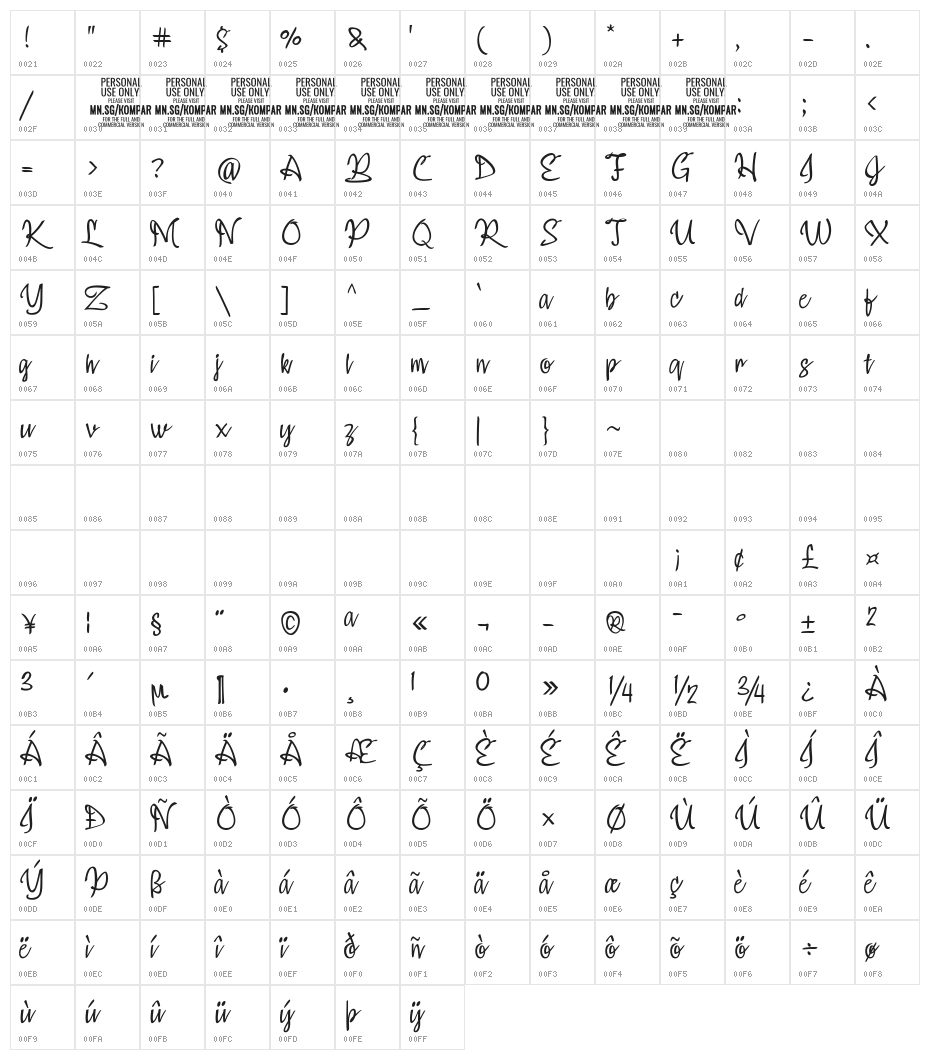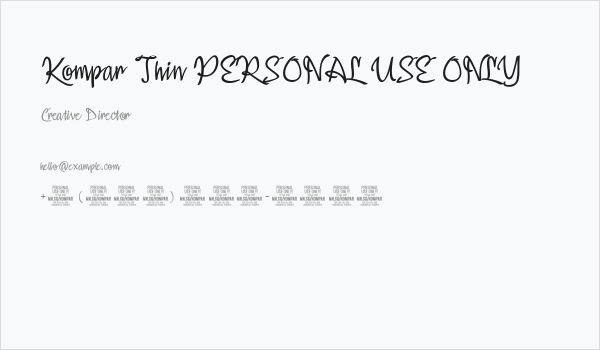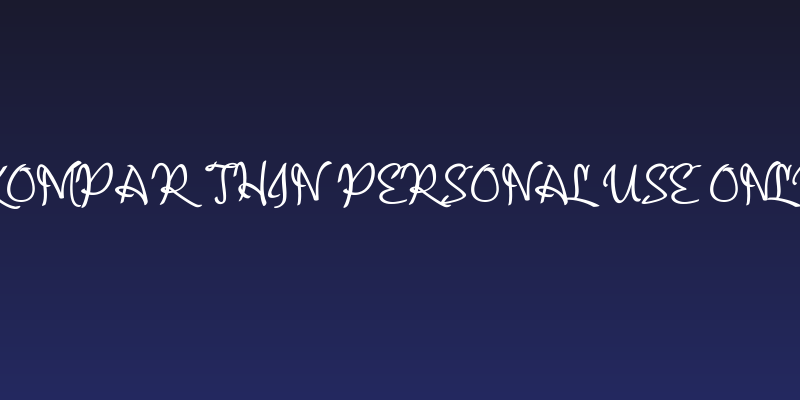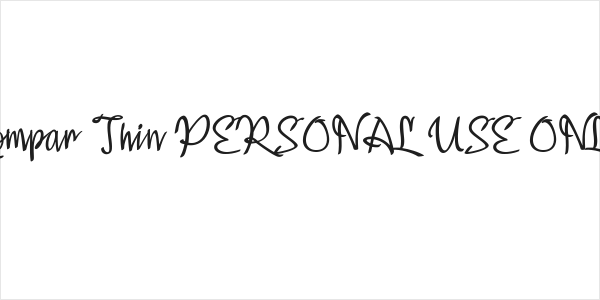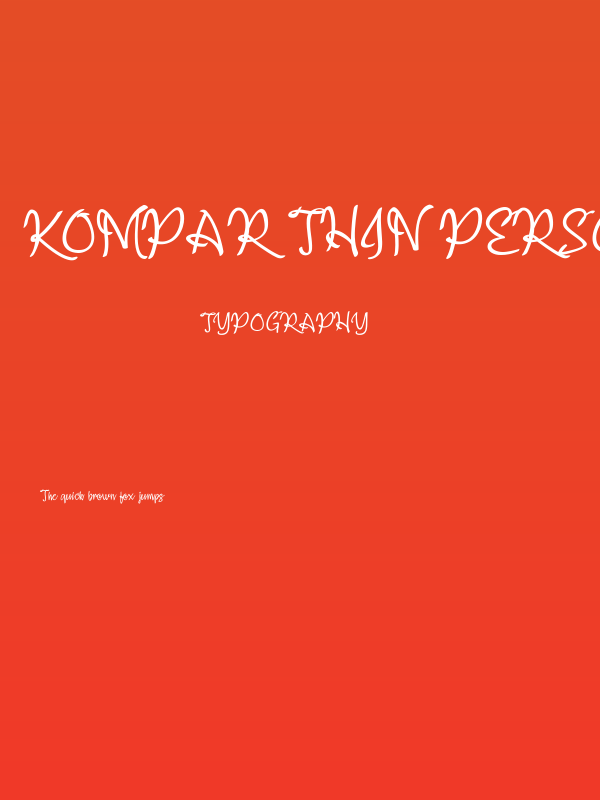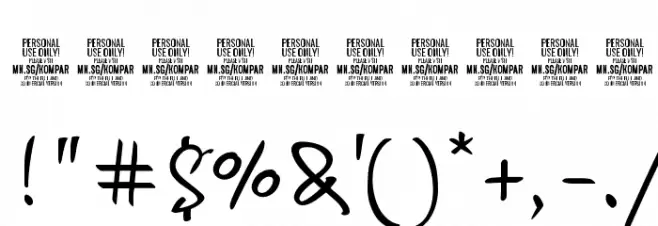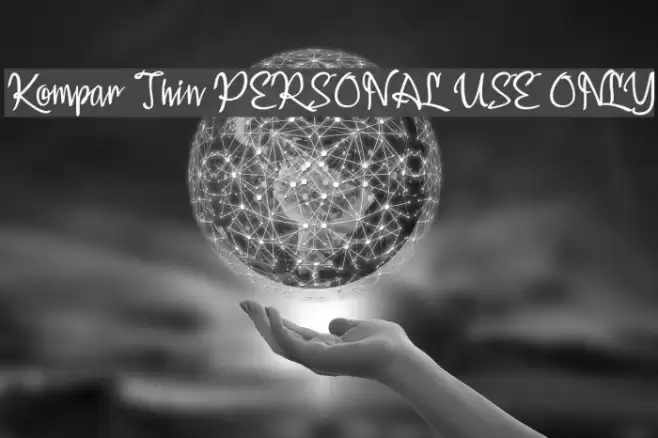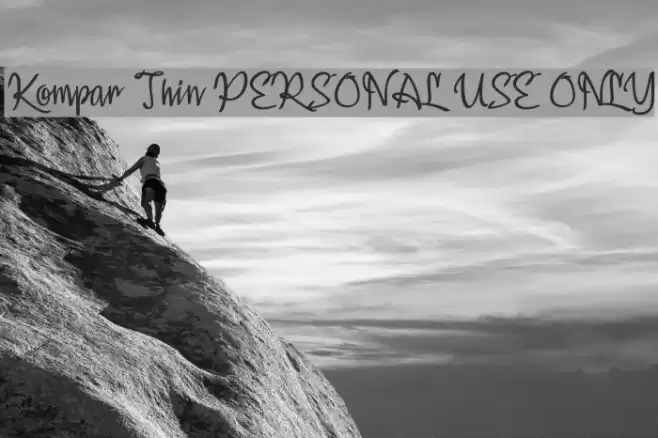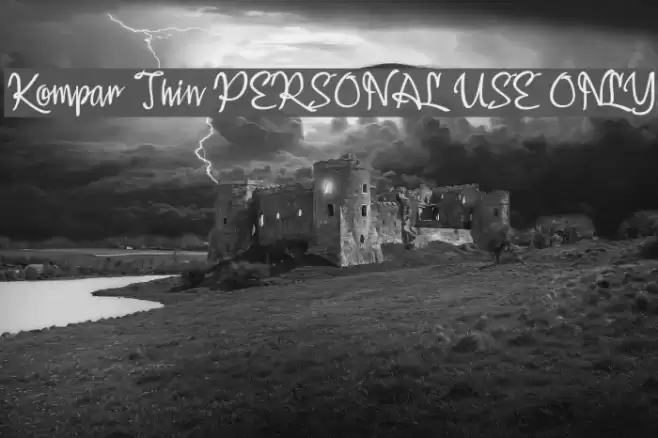
Kompar Thin PERSONAL USE ONLY Font
Kompar Thin PERSONAL USE ONLY Description
This font features a dynamic and expressive style, characterized by its fluid, cursive script. The uppercase letters are bold and sweeping, with elegant loops and flourishes that give a sense of movement and grace. The lowercase letters maintain a consistent flow, complementing the uppercase with their smooth curves and slightly slanted orientation. The numerals and special characters are designed with the same attention to detail, ensuring a cohesive look across all elements. This font's artistic flair makes it ideal for creative and decorative applications.
| Use Case | Logos, Invitations, Artistic projects |
| Proposed Projects | Ideal for wedding invitations, greeting cards, branding, and artistic projects. |